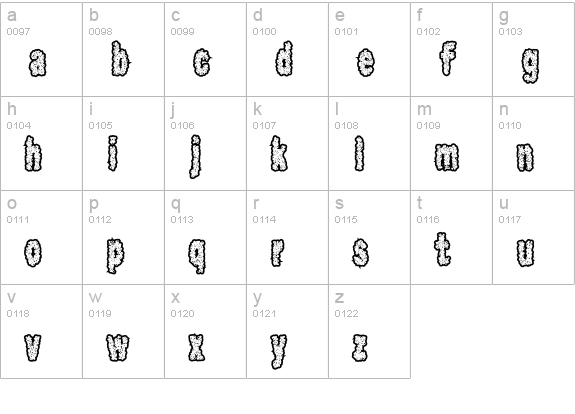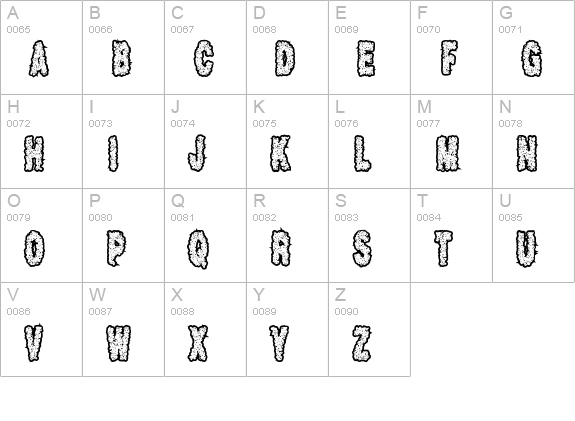
Scab Font Details
Scab font is a unique and eye-catching typeface that is sure to make a statement in any design project. With its edgy and grungy appearance, Scab font adds a touch of urban flair and rebellious spirit to your text. Its jagged lines and distressed look give it a raw and gritty aesthetic that sets it apart from traditional fonts. What's even better is that Scab font is available for free download at FontsMarket.com. This means you can easily add this striking font to your collection without spending a dime. Whether you're working on a poster, logo, website, or any other creative project, Scab font is sure to bring a bold and edgy vibe to your designs. Download it today and unleash your creativity with this free and dynamic font!